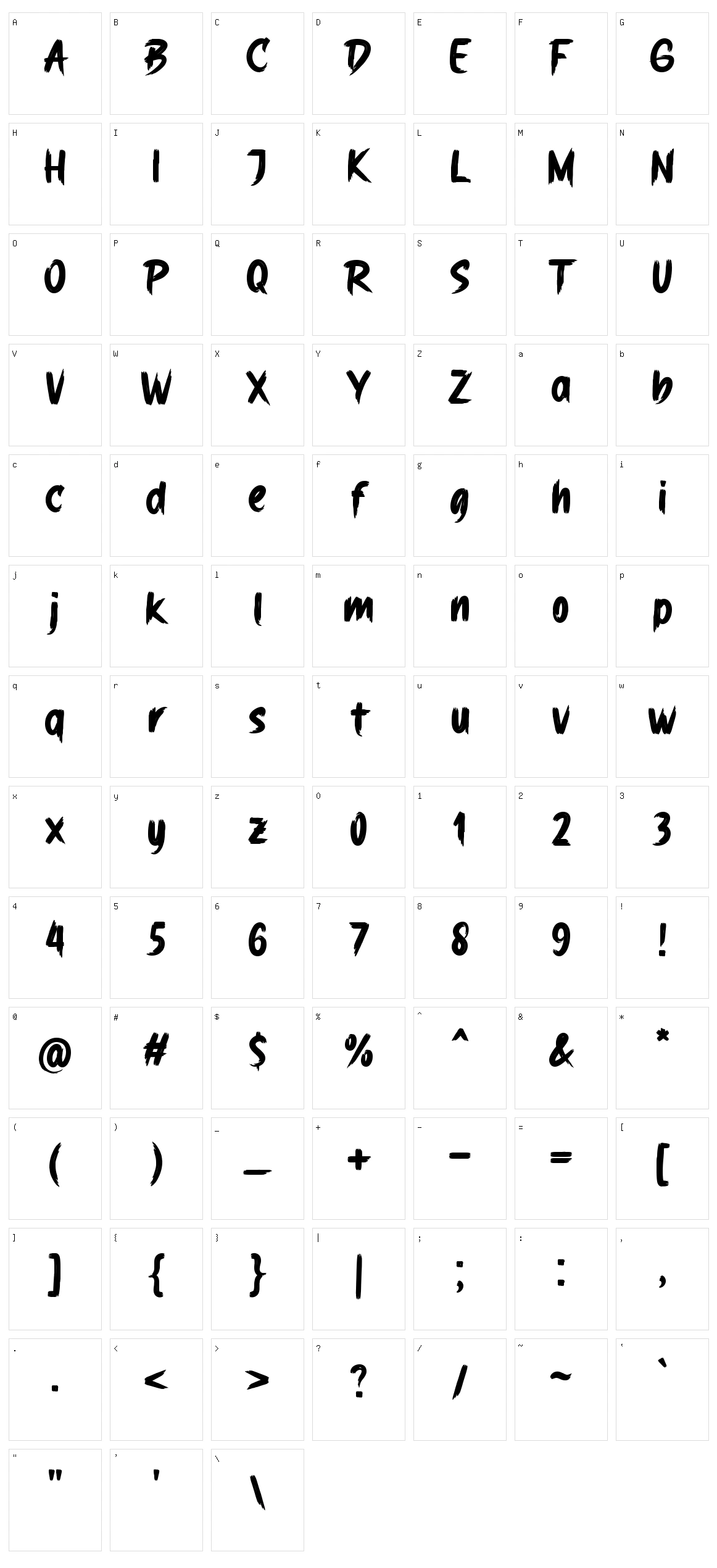
The free font Donsky is carefully designed by Lemonthe, showcasing a thoughtful balance of creativity and usability and falls under the Script font style. When you download the ZIP file, it contains only 152.92 KB of font files, making it lightweight and quick to download. Please review the license details below to understand permitted usage and distribution rights. If license information is not available, we recommend using this font for personal projects only or contacting the author directly for commercial usage permissions.